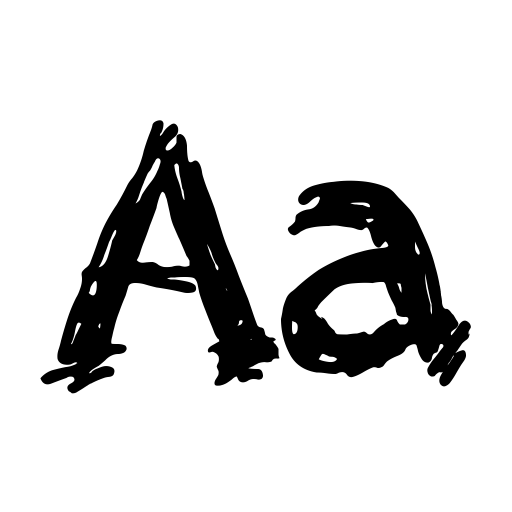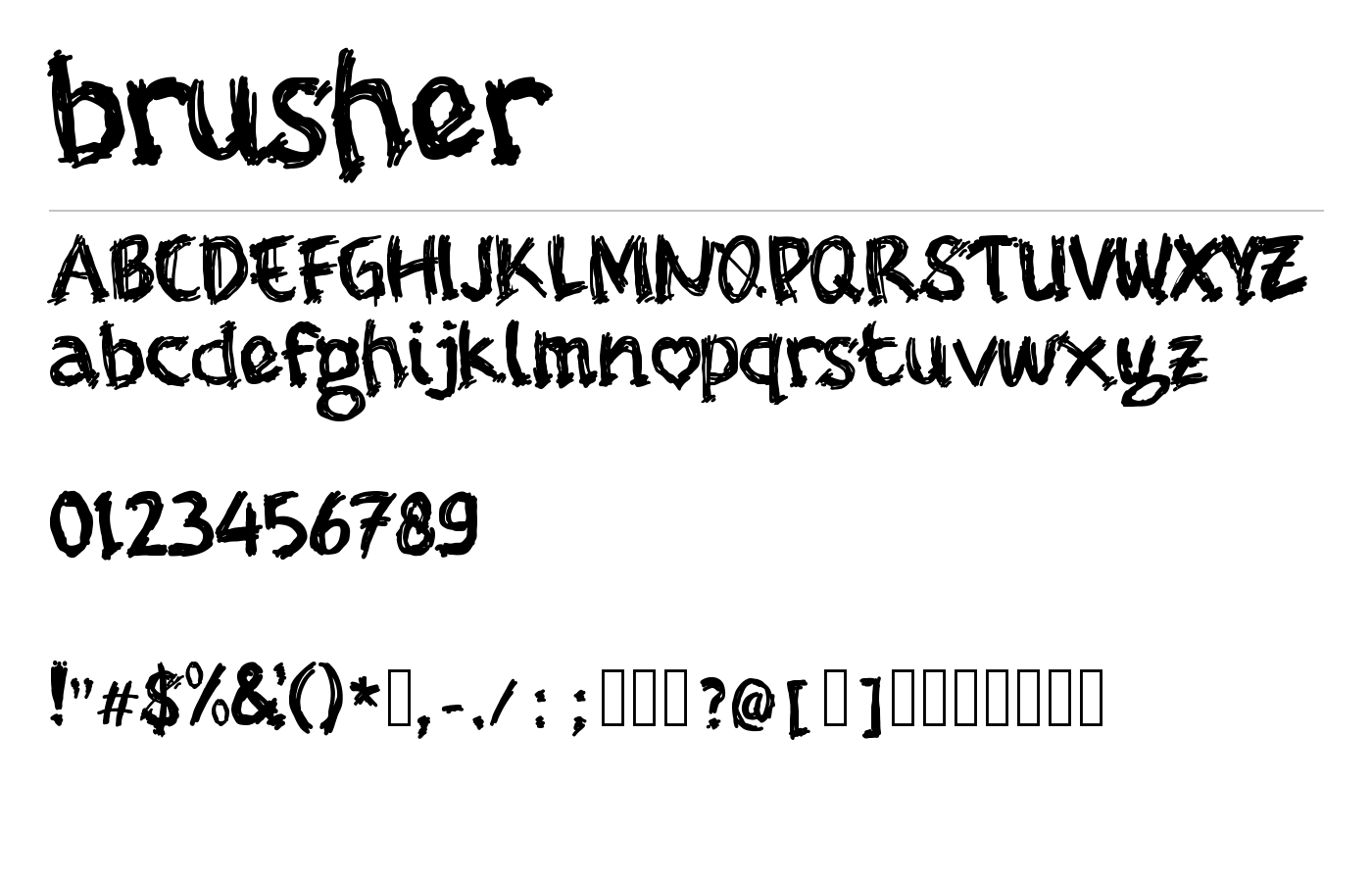
Brusher is a bold, playful brush script font with a casual, hand-painted feel that brings energetic personality to any design. Its uneven strokes and textured edges create a lively, informal look ideal for creative projects, branding, and headlines that want to convey a friendly, artistic vibe. This font works well for posters, logos, and packaging where a dynamic, handcrafted style is desired.
brusher Font
About brusher Font